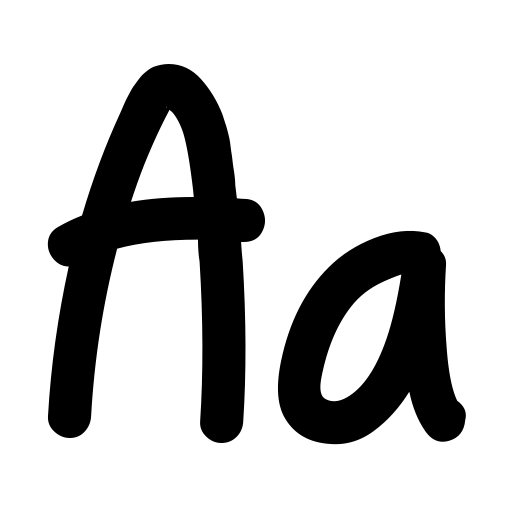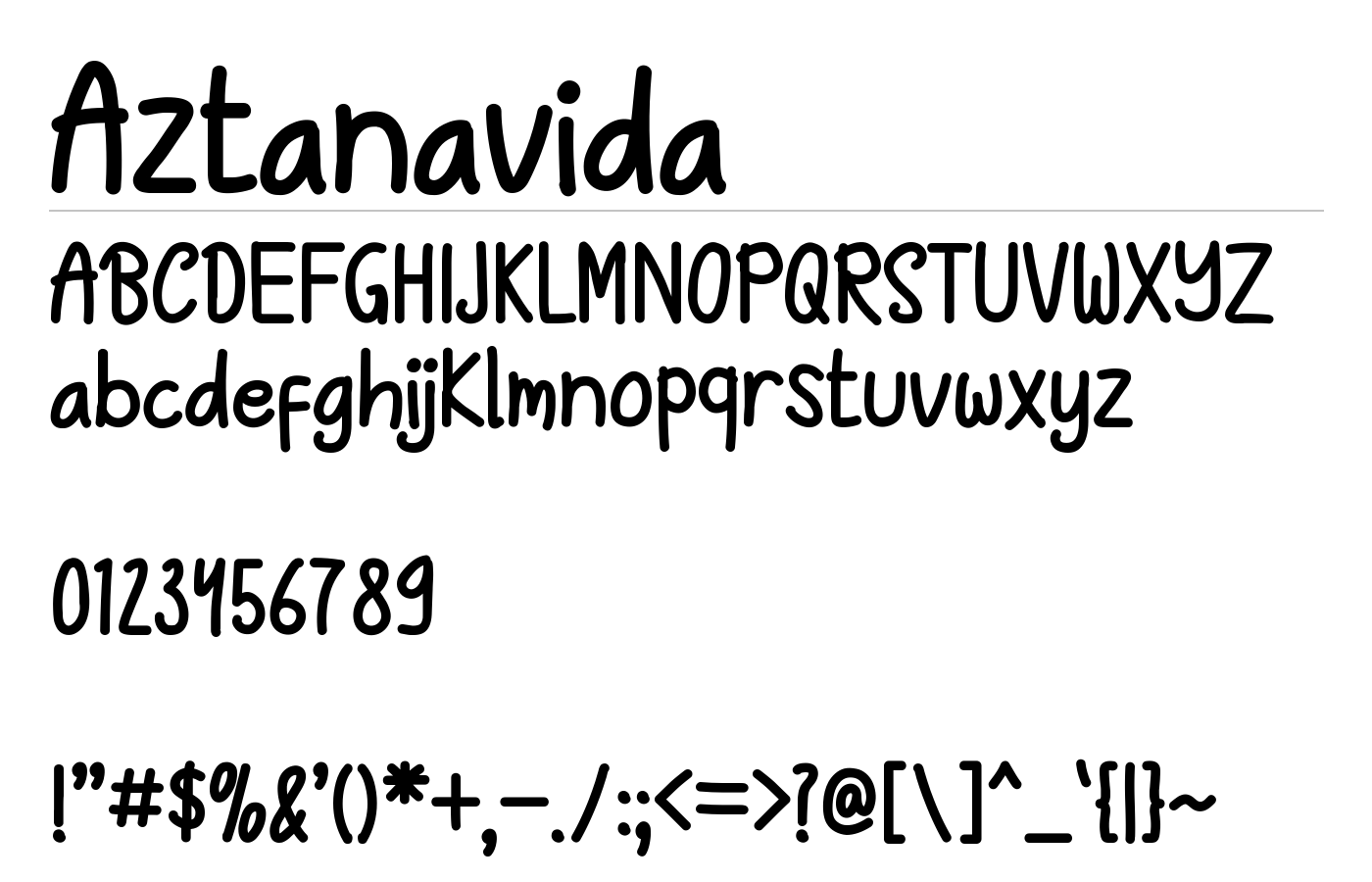
Aztanavida is a playful, casual sans serif font with a hand-drawn feel that adds a personal and approachable touch to any design. Its irregular, rounded letterforms and moderate x-height create a friendly, informal vibe, making it ideal for creative projects, children's materials, and fun branding where warmth and authenticity matter. This font works best in headlines, logos, and packaging that want to convey cheerfulness and a human, whimsical personality.
Aztanavida Font